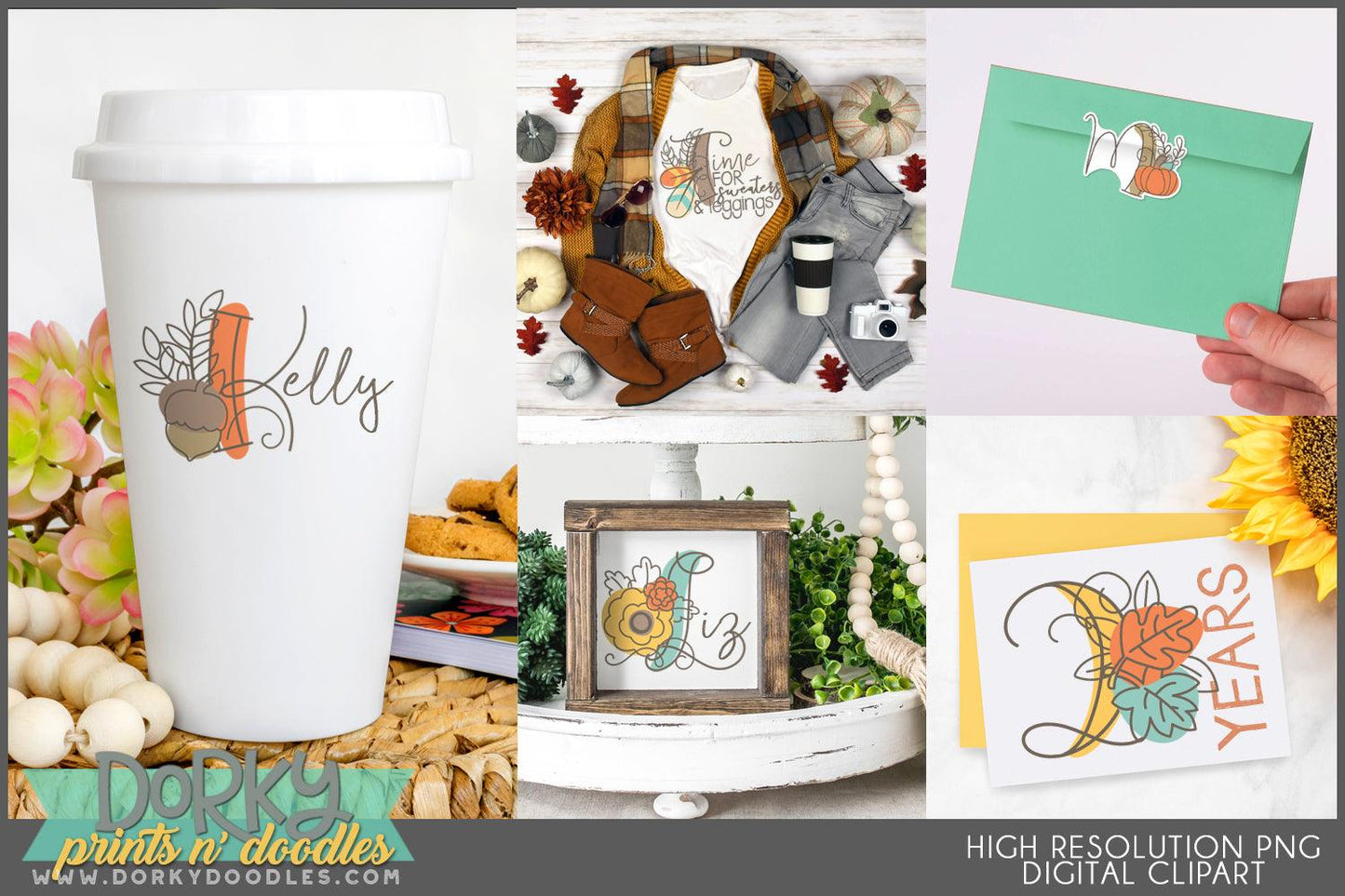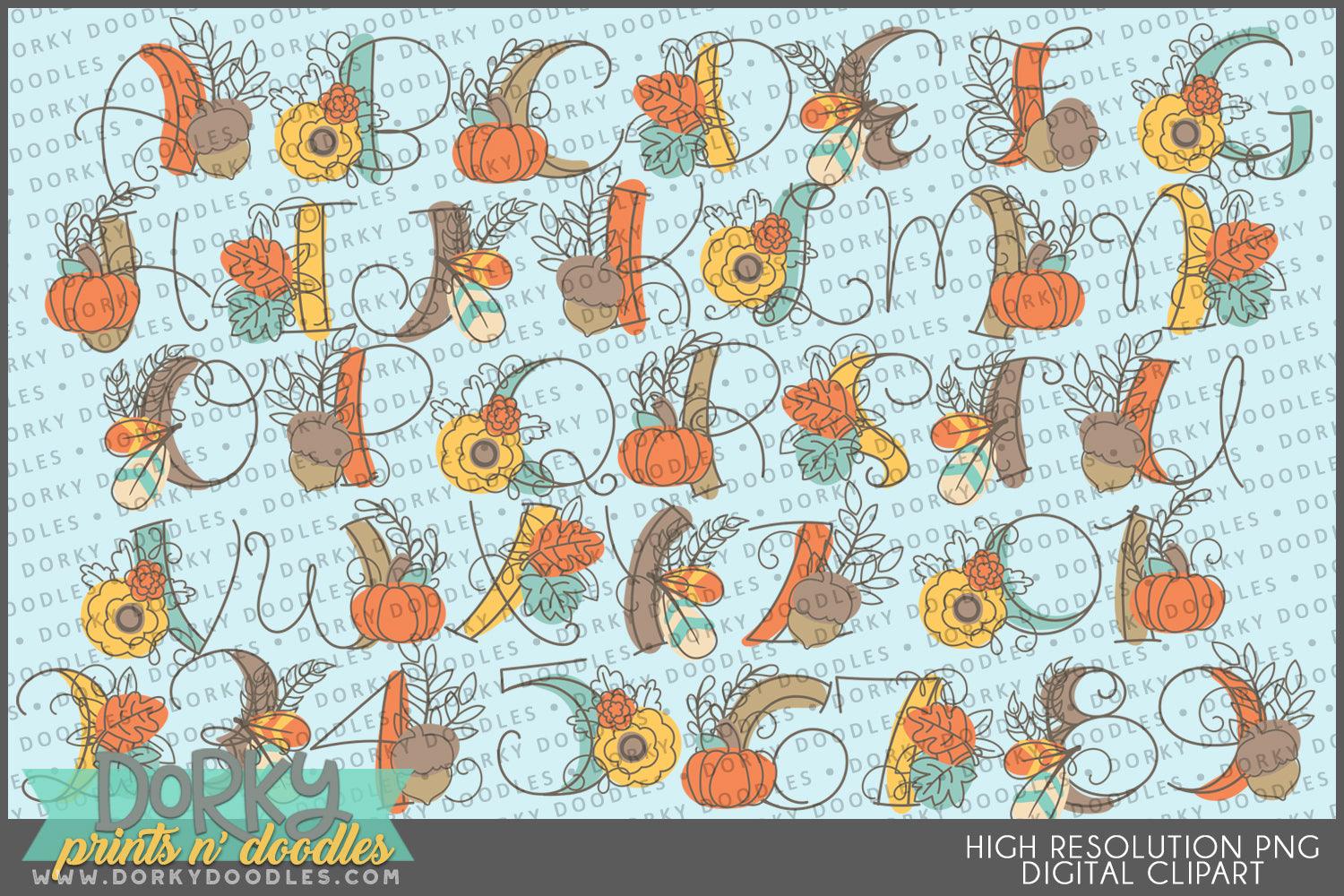
Sketchy Fall Alphabet Clipart
These fun and sketchy fall alphabet and number images look fabulous in scrapbooks, planners, party invitations, cookies, stickers, and decor! You will get 6 Digital Clip Art images in high resolution PNG format (they come as a ZIP file that you can download instantly once payment has cleared).
• letters A-Z featuring sketchy style fall art
• numbers 0-9 featuring pumpkins, leaves, sunflowers, and acorns